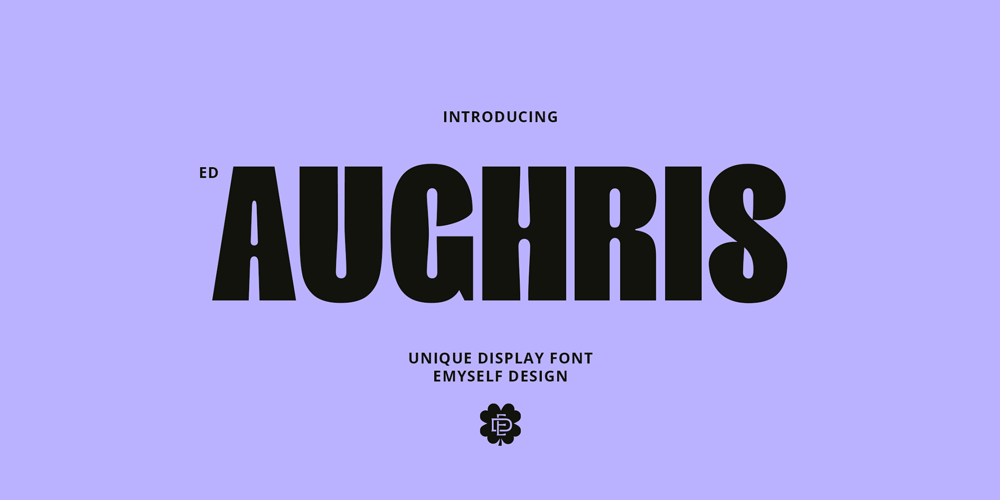
ED Aughris Font Family was designed by Eko Setiawan and published by Emyself Design. ED Aughris contains 1 styles and family package options. Aughris is a sans-serif display font with a strong and modern character. Its bold design and minimalist style make it well-suited for a variety of design applications, from headlines to bold graphic elements.Aughris font is designed to be easily combined with various other fonts. This gives you greater creative freedom in creating unique and interesting designs. and the distinctive shape of the Aughris font will give a different touch to each of your designs. The modern and minimalist style of Aughris also makes it very suitable for current design trends. This font will give your design a fresh and contemporary look.